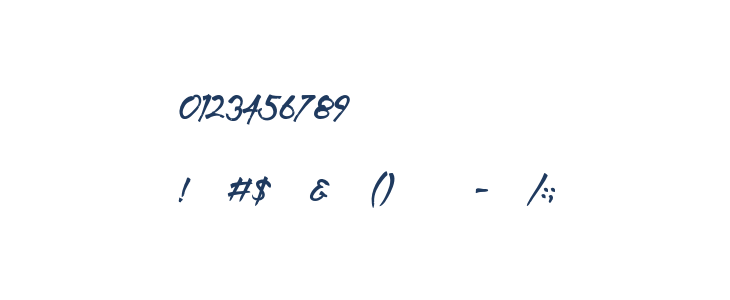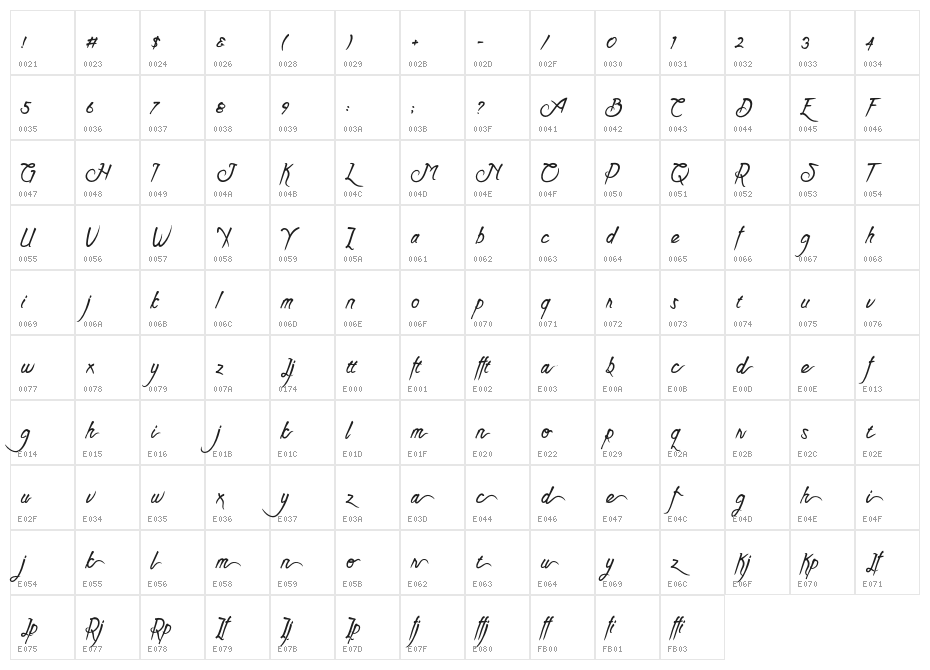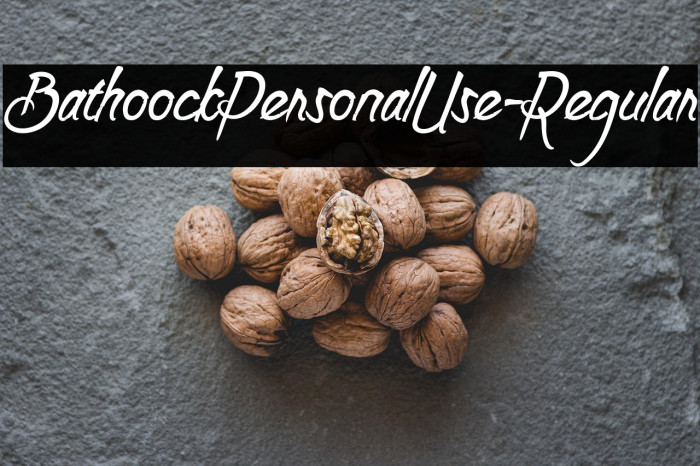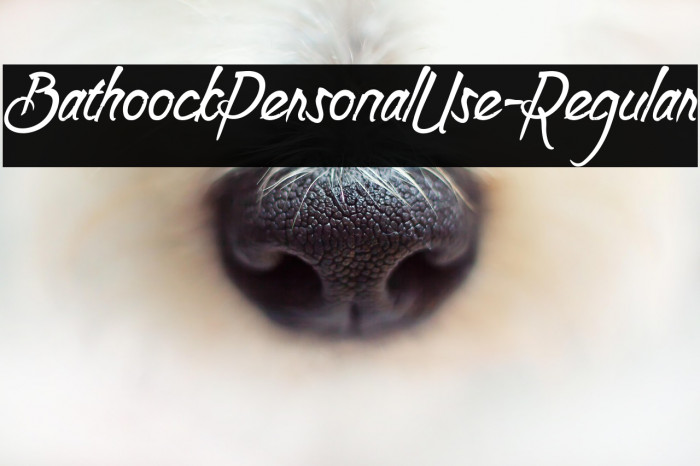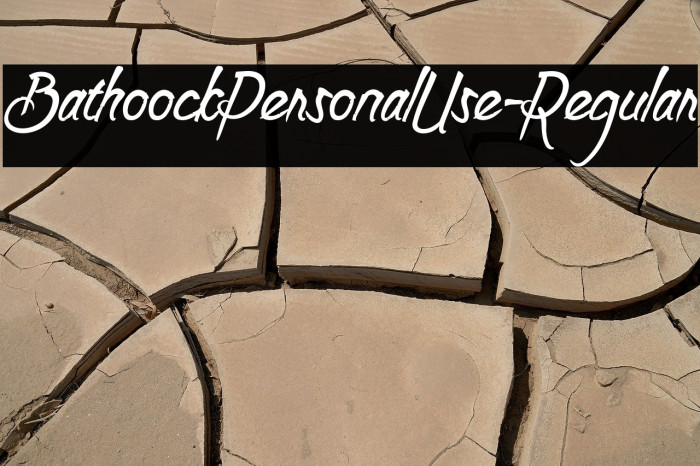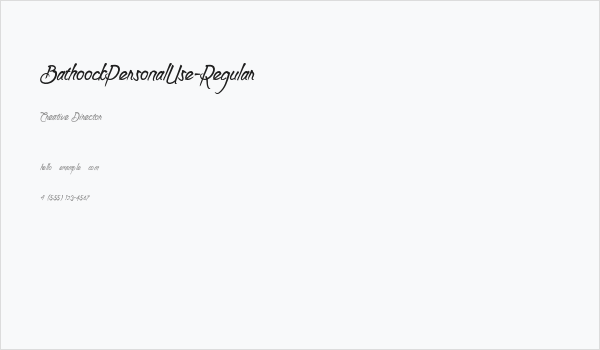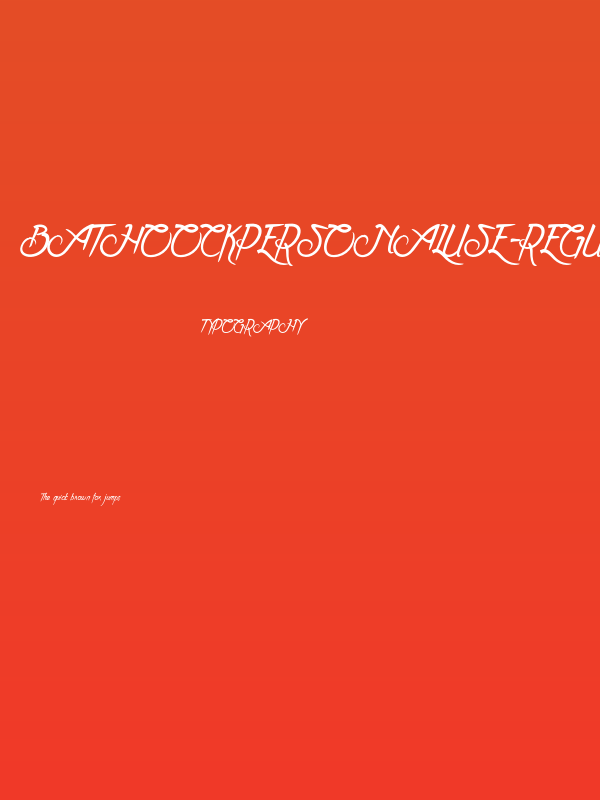
BathoockPersonalUse-Regular Font
BathoockPersonalUse-Regular Description
This font features an elegant, flowing script style with a calligraphic influence. The characters are highly stylized with sweeping curves and flourishes, giving it a sophisticated and artistic appearance. The uppercase letters are particularly ornate, with exaggerated loops and swashes that enhance its decorative quality. The lowercase letters maintain a consistent style, offering a harmonious blend with the uppercase. The numerals and special characters are designed to match the overall aesthetic, ensuring a cohesive look across all text. This font is ideal for projects that require a touch of elegance and creativity.
| Proposed Projects | Ideal for wedding invitations, greeting cards, logos, and branding that require a sophisticated touch. |